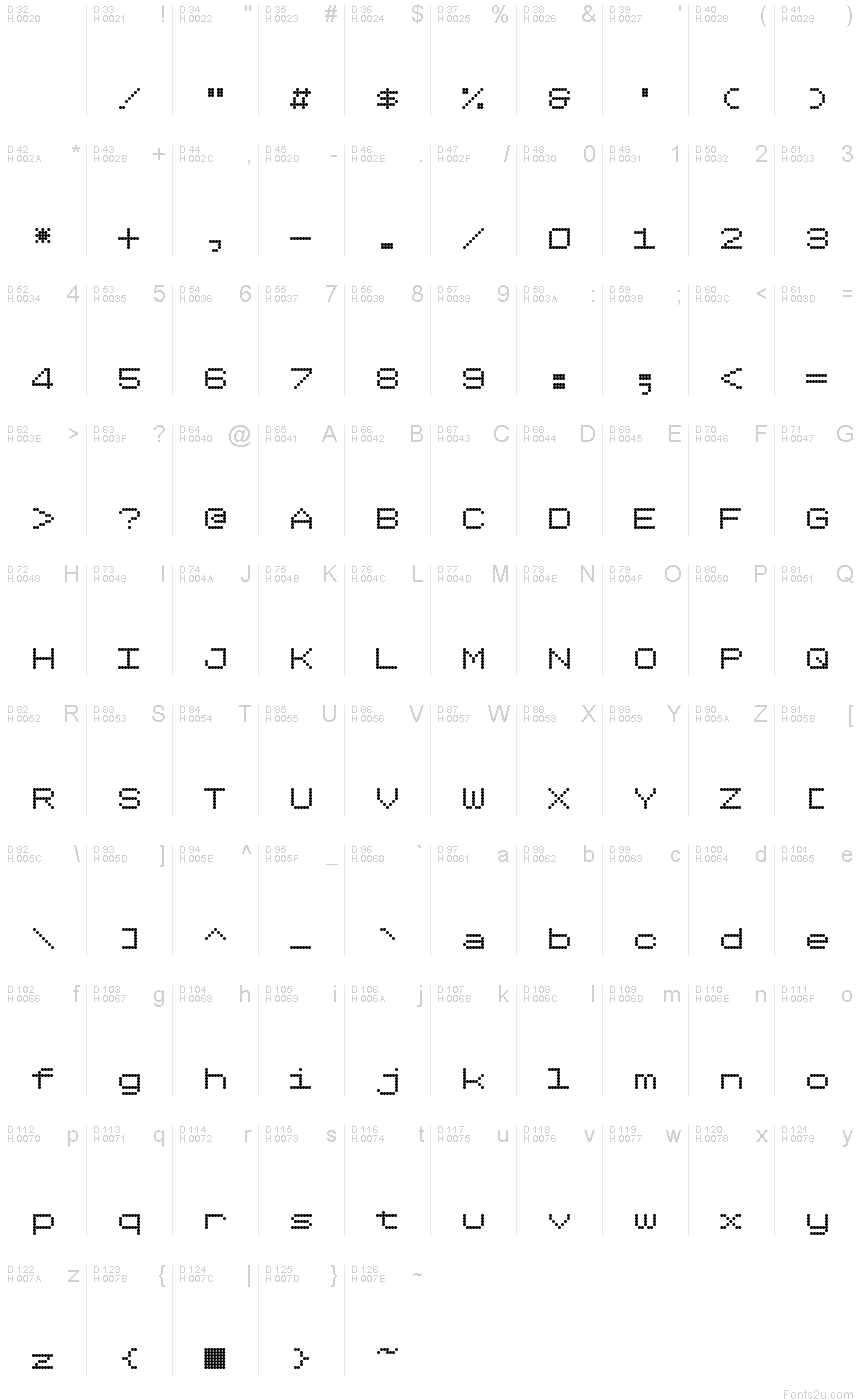
Dotimatrix 7
Dotimatrix 7 font by Tepid Monkey Fonts lines up tight rows of circular dots to mimic classic LED and scoreboard lettering. The grid-based shapes feel mechanical yet playful, giving headlines a clear digital voice. It’s a free font that instantly suggests electronics, devices, and retro tech.
Dotimatrix 7 works best at larger sizes where each dot reads crisply, perfect for sci‑fi titles, event posters, arcade game interfaces, techno album covers, scoreboard graphics, and futuristic UI labels. Pair this free font with a simple sans serif for supporting text to keep layouts readable. Its rhythmic dotted texture adds motion and energy without overwhelming the design.